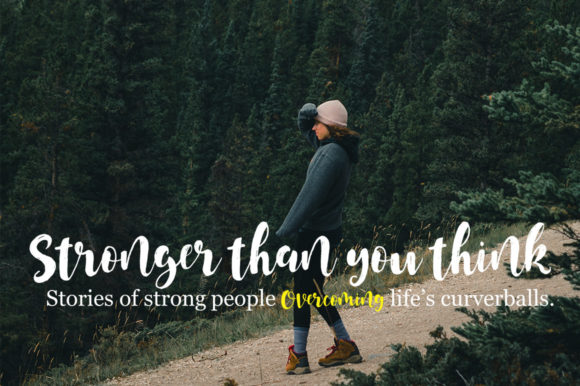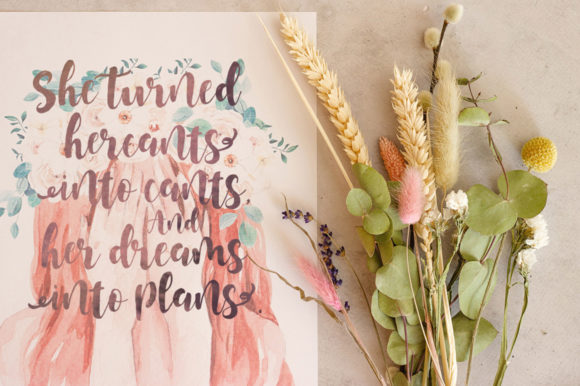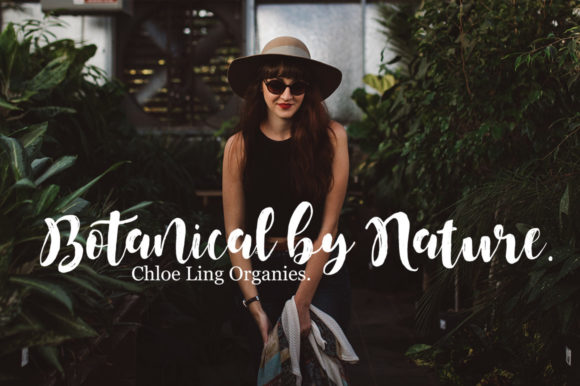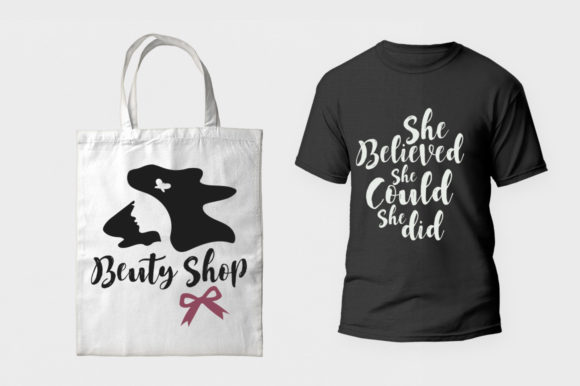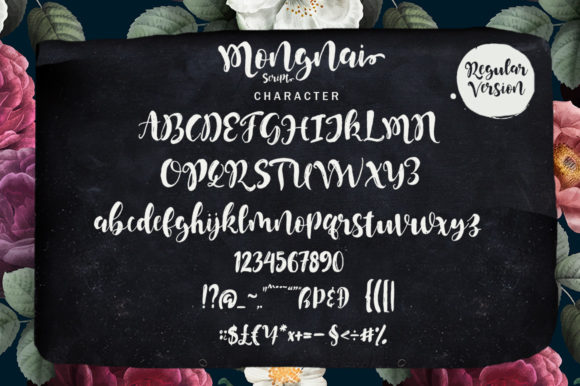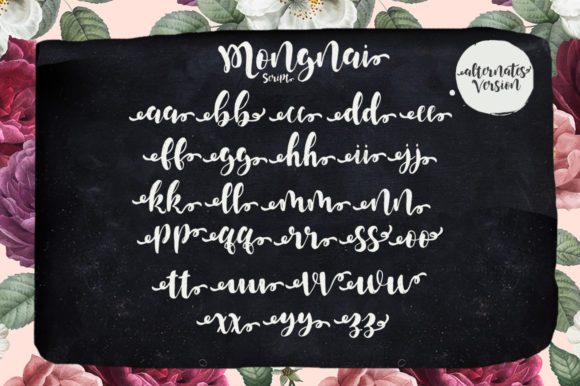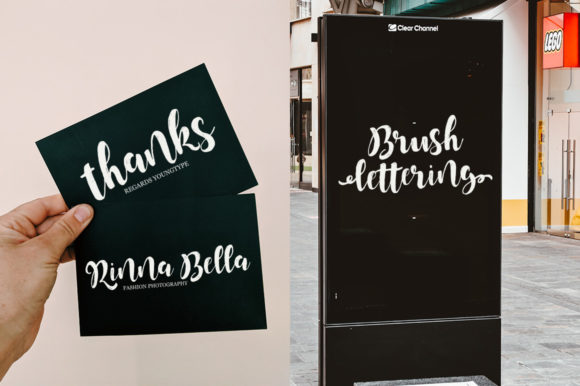
Mongnai Script Font
About Mongnai Script Font
Mongnai Script is a cool and whimsical brushed script font that adds a touch of chicness to any design. With its unique and playful letterforms, this font is sure to capture attention and make a statement in your projects. The PUA encoding of Mongnai Script ensures easy access to all the glyphs and swashes, providing you with endless design possibilities.
The charm of Mongnai Script lies in its brush-like strokes and organic feel. The letters have a handcrafted appearance, as if they were created with a brush or marker. This gives the font a relaxed and natural vibe, making it perfect for projects that require a touch of informality and creativity.
The versatility of Mongnai Script allows it to be used in a variety of design contexts. It works well in branding and logo designs, adding a sense of playfulness and uniqueness. It can also be used in social media graphics, posters, packaging, and other promotional materials, giving them a trendy and eye-catching look.
One of the standout features of Mongnai Script is its collection of glyphs and swashes. These additional characters and decorative elements allow you to customize and embellish your designs further. You can easily access these glyphs and swashes using the PUA encoding, adding flourishes, ligatures, and unique letter combinations to create a more personalized and artistic touch.
Whether you’re working on invitations, quotes, headlines, or any other design project, Mongnai Script will bring a sense of fun and whimsy. Its flowing and dynamic letterforms create a lively rhythm that adds visual interest to your text. The varied line thickness and subtle brush texture add depth and character to the overall design.
In summary, Mongnai Script is a cool, whimsical, and chic brushed script font that offers versatility and creative freedom. With its unique letterforms, PUA encoding for easy access to glyphs and swashes, and playful brush-like appearance, this font is perfect for creating designs that stand out. Fall in love with Mongnai Script’s versatility and use it to bring a touch of personality and style to your spectacular designs.